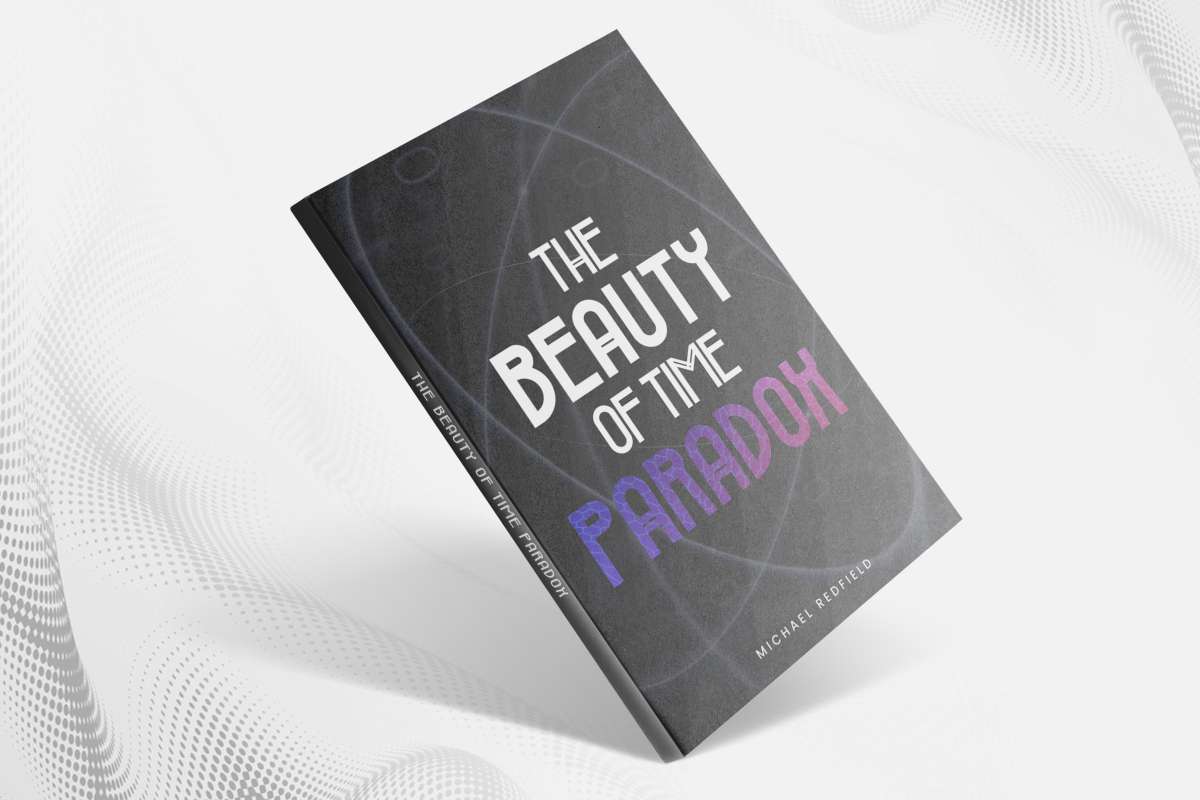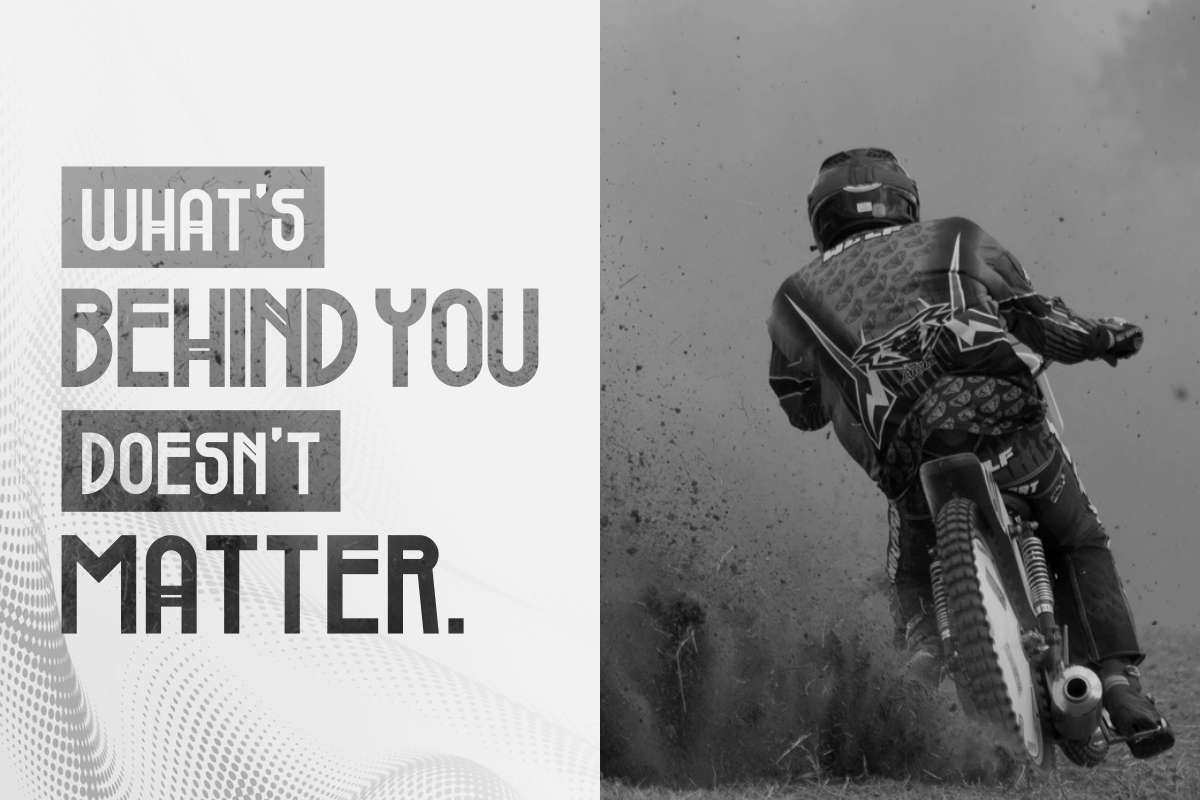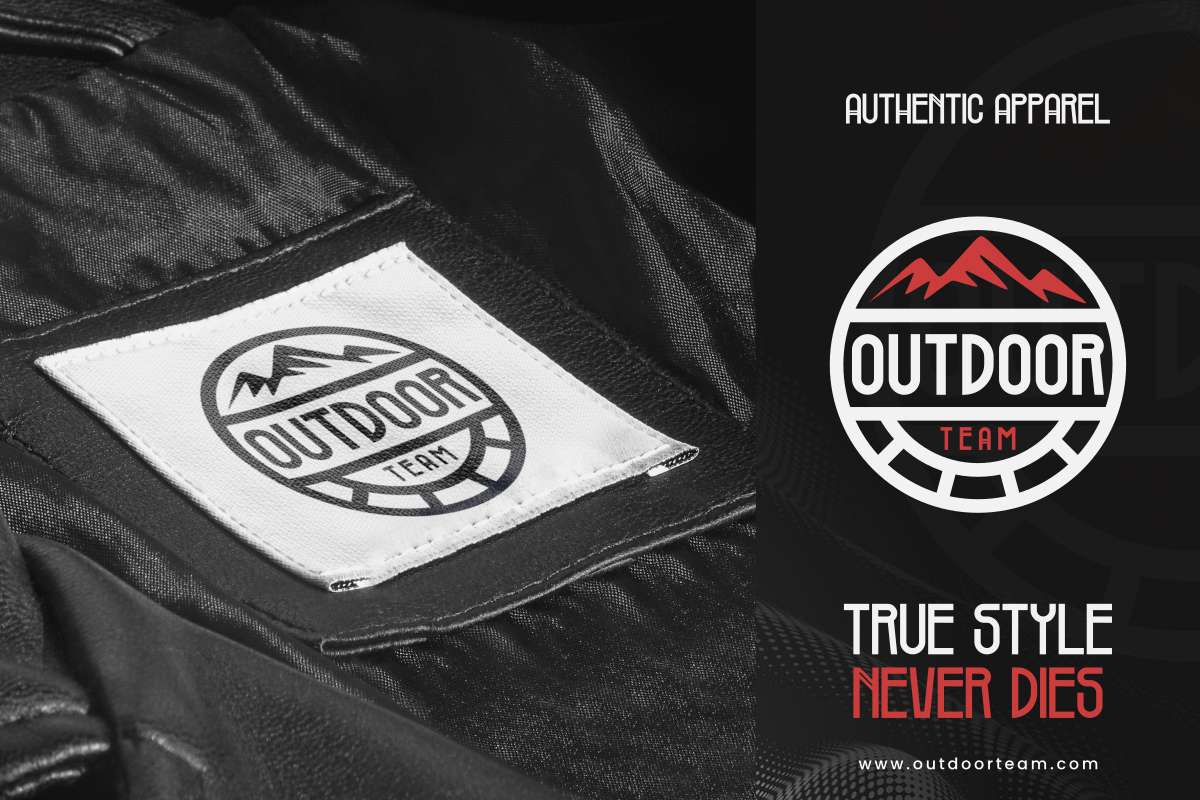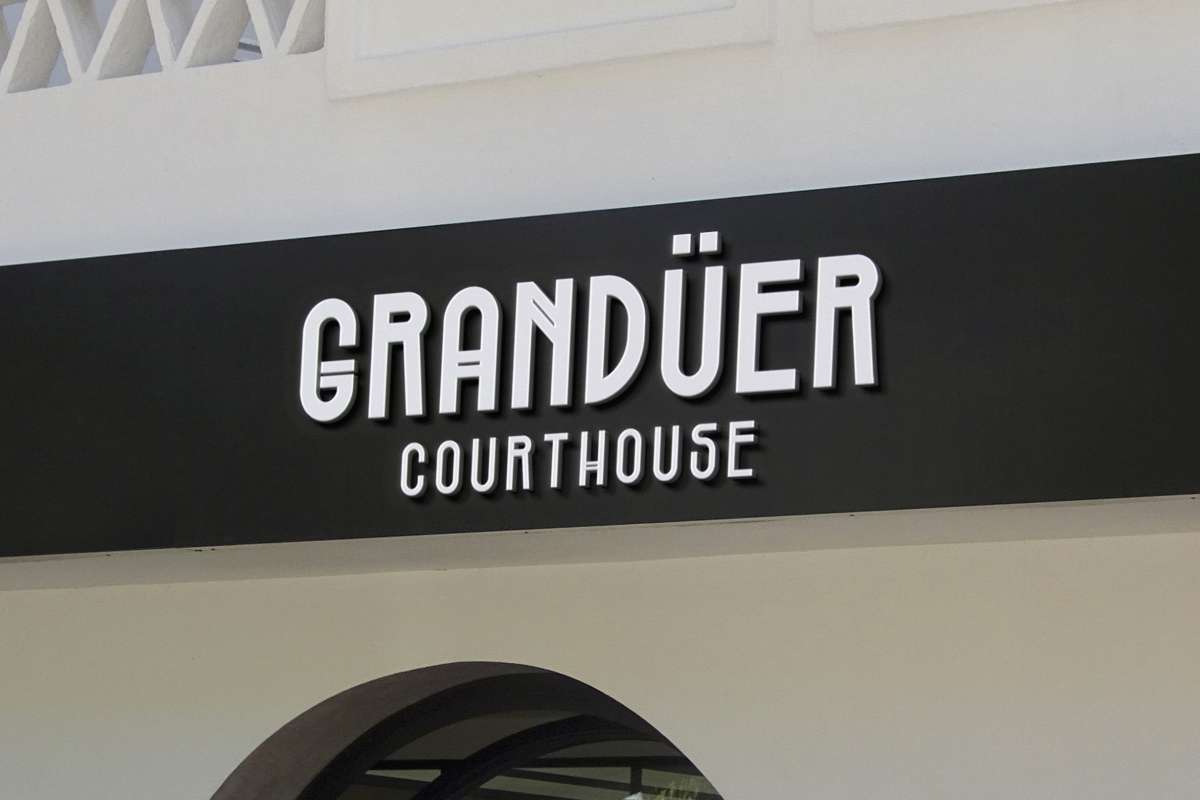
Federal Right Display Font
This is a minimalist and stylish font family with two styles. The style of this font are casual, sporty, techno, etc. Great for logo, brandings, headlines, products packaging, signage etc. Federal Right Font come with unique characters that will make your designs standout. The font will be awesome for many industries including : government , games, sports, techno, etc